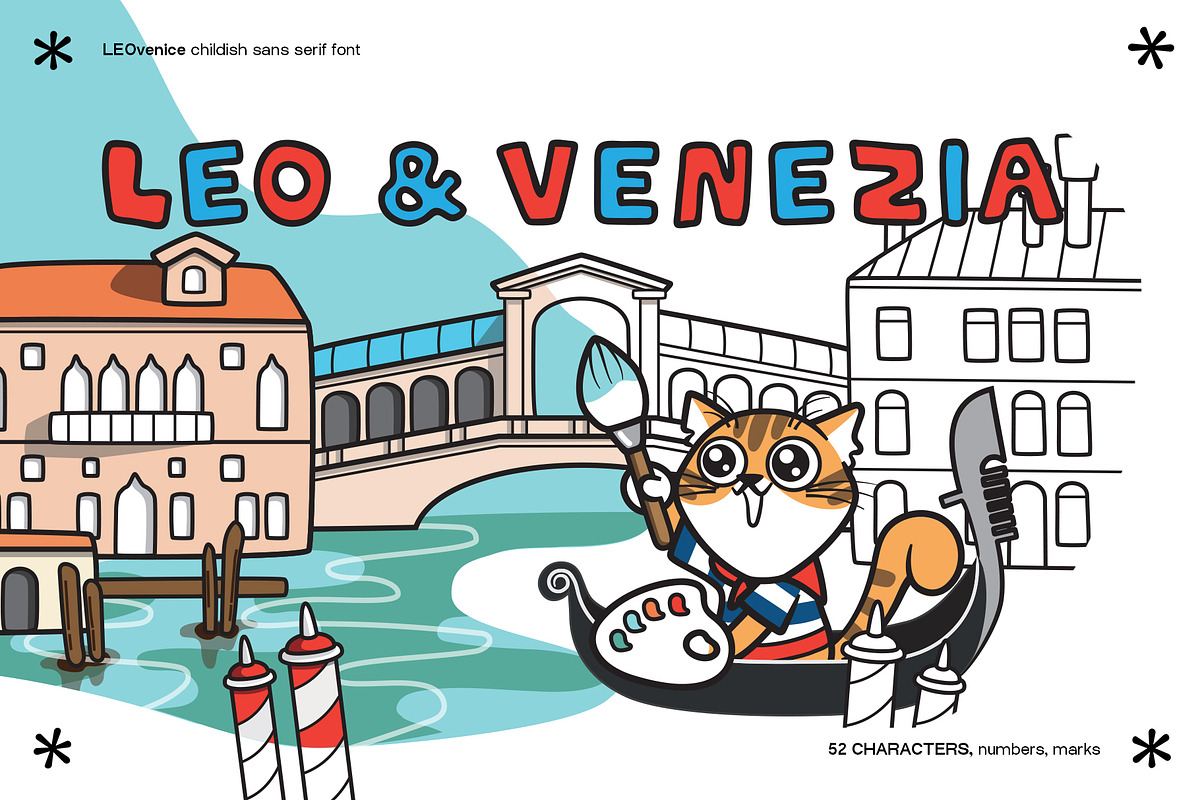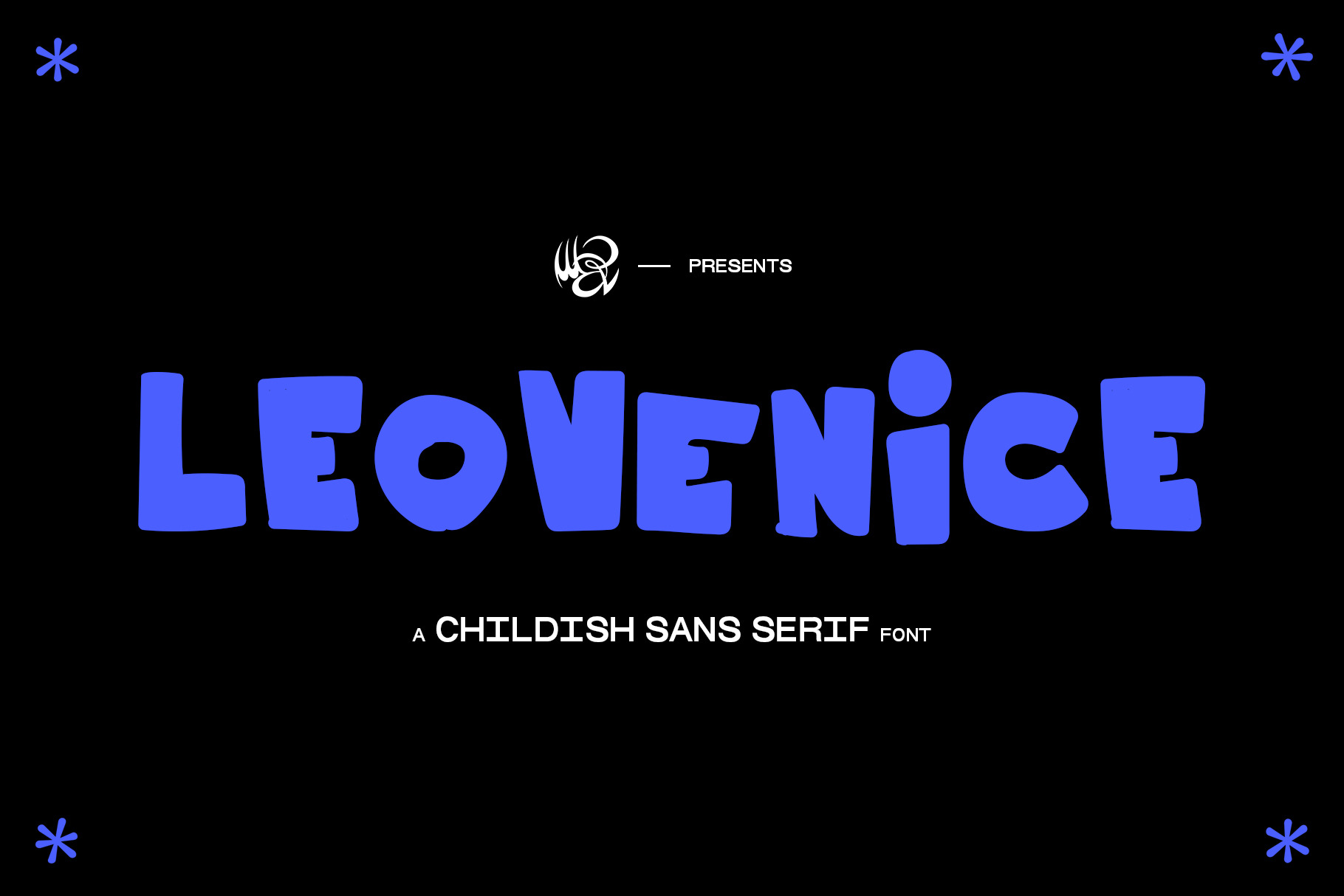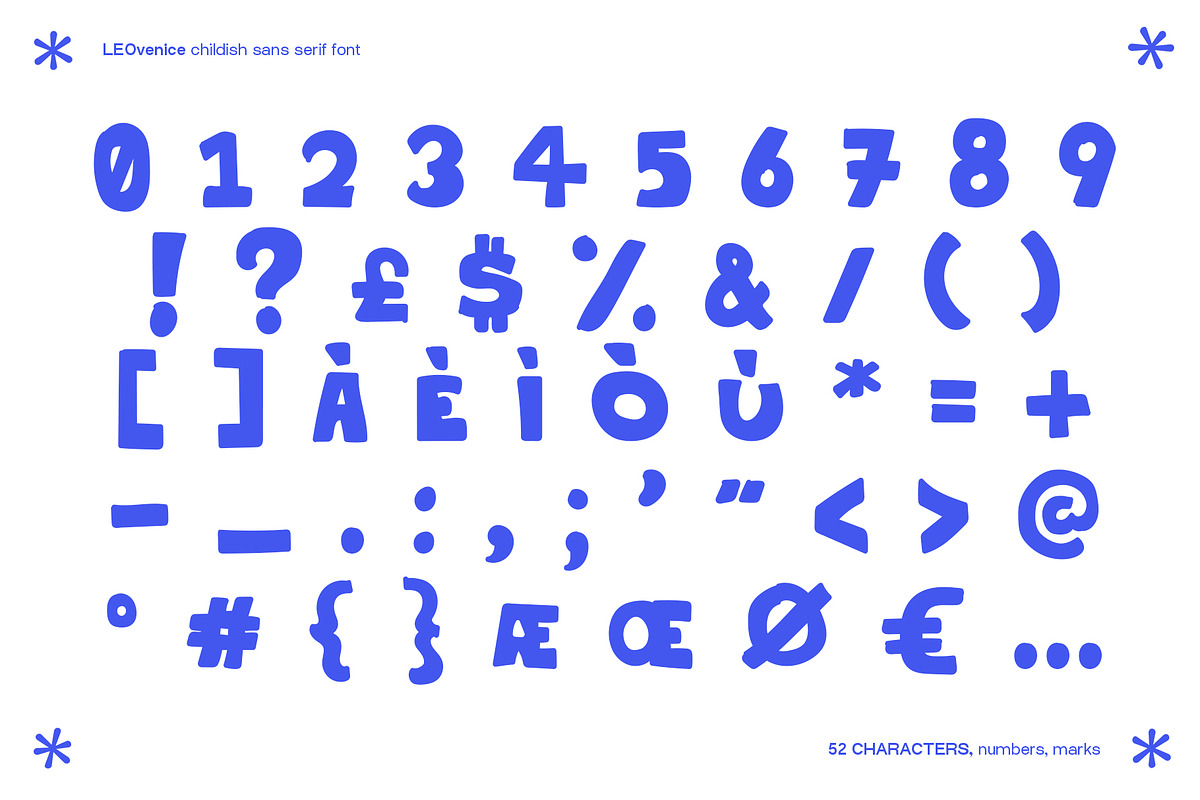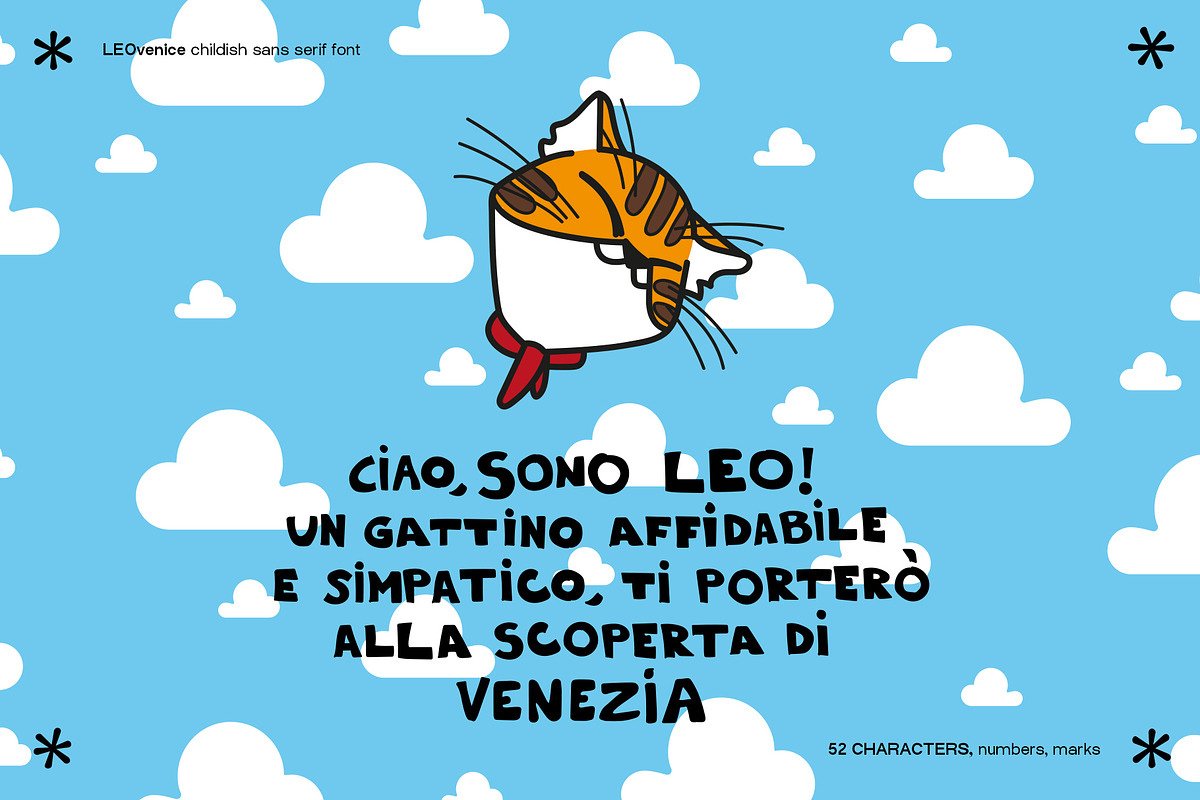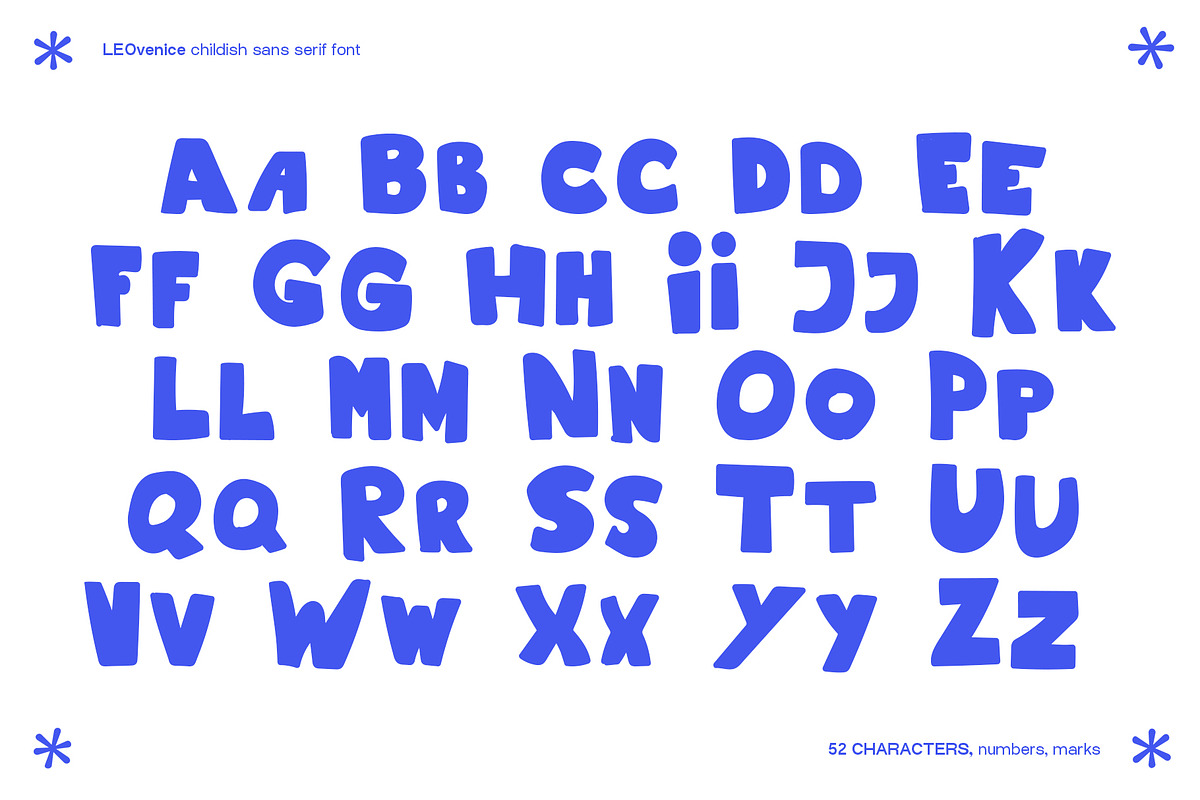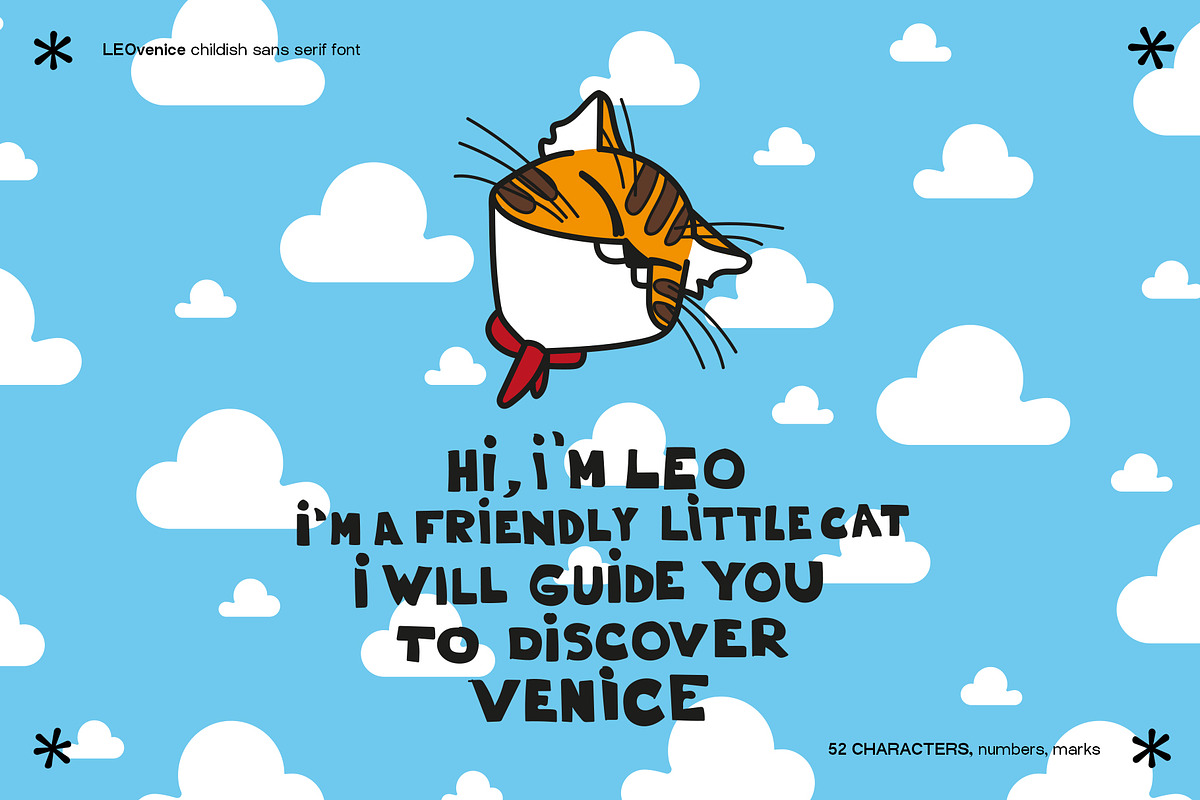
LEOvenice childish sans serif font
LEOvenice is a new childish sans serif font, it has been deisgned for a shop in Venice that sells gadgets about Venice with its mascotte: LEO. This font is cute and friendly and the awesome part about it is that the Uppercase and the Lowercase letters are similar, that can add more variability to your text or project. The font is full of all 26 letters, which combined to the alternatives are a total of 52, font has also all the numbers and pretty much all of the symbols. If you are designing something that is meant to be directed to a young audience, this is the font for you, very legible, big and bold to be read even in small places like youtube thumbnails.